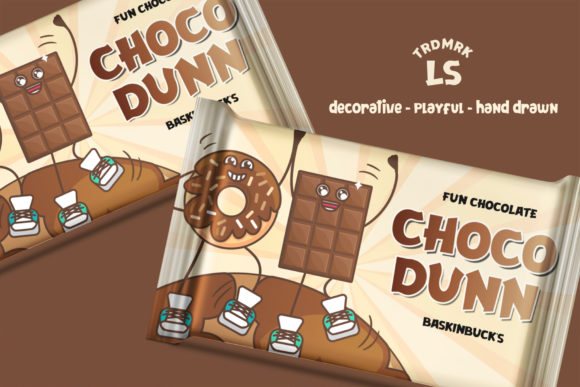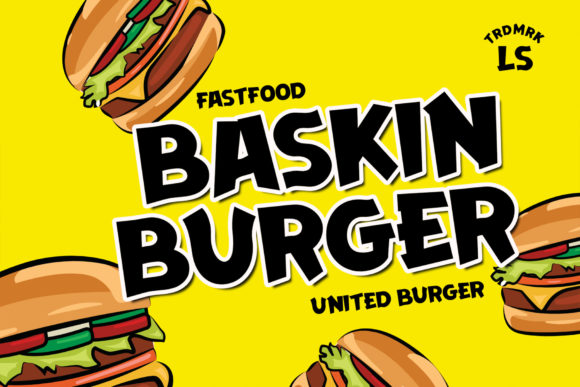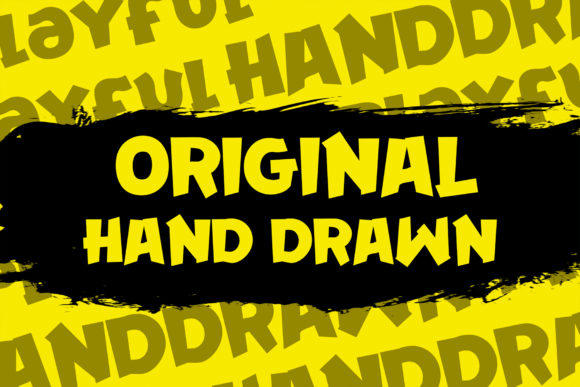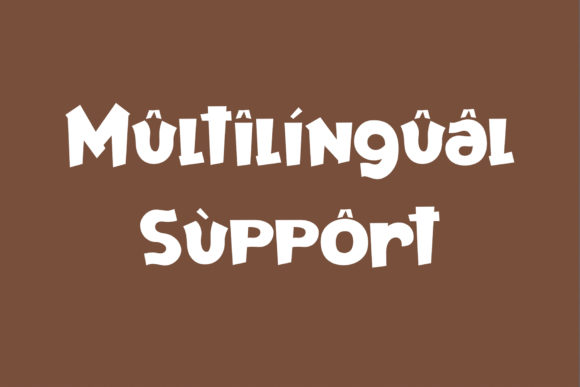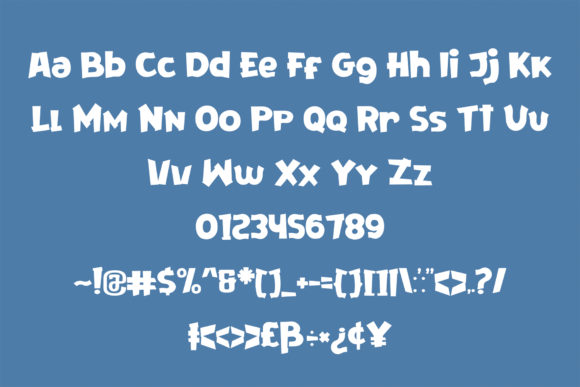
The Perfect Font for a Colorful World: Baskin Bucks Font
Remember the excitement of a children’s birthday party or a school project where creativity knows no bounds? The joy of seeing a child’s imagination come alive in a colorful and playful display is truly a beautiful thing. As designers, we strive to capture that same essence in our work, and that’s where the Baskin Bucks Font comes in – a cartoon-like and vibrant display font that embodies playfulness and authenticity.
With its chunky lettered design, Baskin Bucks Font is the perfect choice for any children’s activity or school project. Its value lies not only in its aesthetic appeal but also in its ability to convey a sense of fun and playfulness, making it an invaluable addition to any designer’s toolkit.
Baskin Bucks Font Key Features
- Font Family: Baskin Bucks
- Unique Characteristics: Includes custom-designed glyphs for currency symbols and emoticons, providing a playful and modern touch to text
Baskin Bucks Font Review
I recently had the chance to dive into the Baskin Bucks Font and here’s my honest take on it.
- The Baskin Bucks Font is an ideal choice for casual, playful designs, especially those involving ice cream shops or related branding.
- The font’s whimsical feel and rounded edges create a friendly atmosphere, perfect for logos, headings, and titles.
- The font is highly legible, making it suitable for body text and longer passages.
- The Baskin Bucks Font may not be the best choice for formal or professional designs due to its casual nature.
- The font might be too playful for serious or technical content, potentially detracting from the message.
- The font’s limited character set and lack of bold and italic styles might be a hindrance for some users.
The Baskin Bucks Font is a fun, lighthearted option that shines in casual designs. While it has some limitations, it’s still a great choice for the right project. If you’re looking for a playful font to add some personality to your design, Baskin Bucks Font might be just what you need.
The Baskin Bucks Font is ideal for:
- Restaurant and food branding
- Ice cream and dessert marketing
- Fun and playful designs